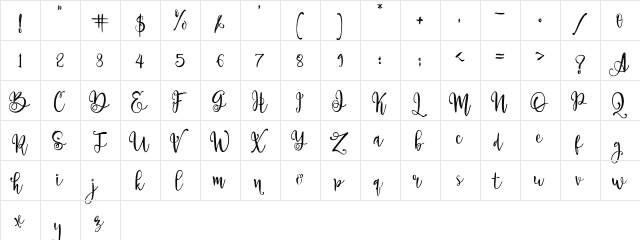
Paradiso Vintage Demo Regular
Design Context for Paradiso Vintage Demo Typeface
Paradiso Vintage Demo has the warm character of retro typography — evoking diners, record sleeves, and the golden age of print advertising.
Font Pairing: Combine Paradiso Vintage Demo with a simple slab or neutral sans — period-accurate companions reinforce the vintage feel without competing for attention.
Pro Tip: Lean into Paradiso Vintage Demo's period character by pairing it with aged paper textures, muted colour palettes, and vintage illustration styles.